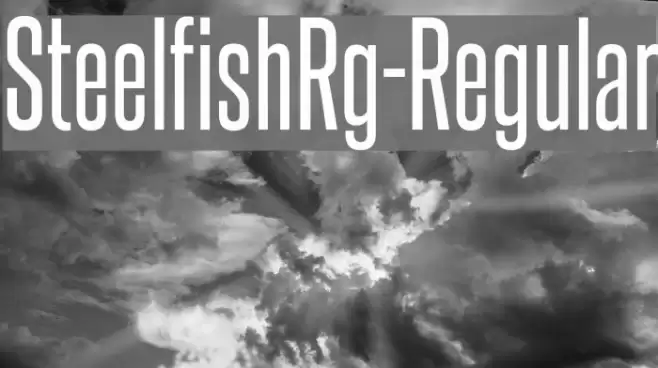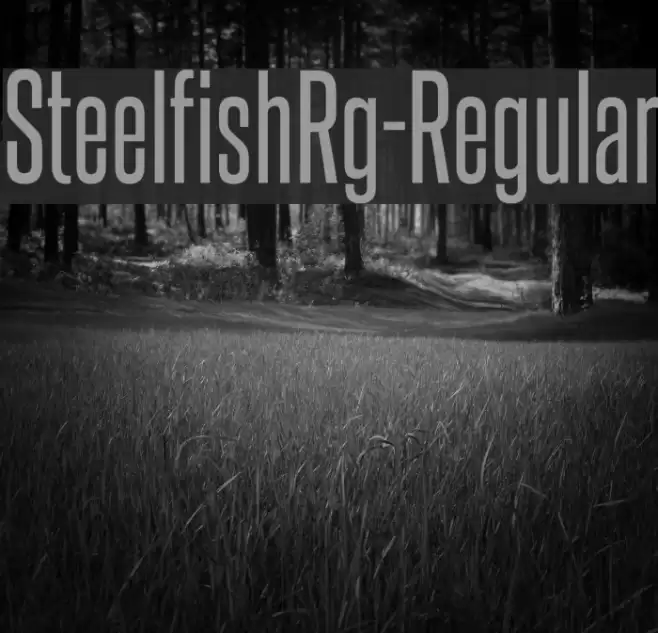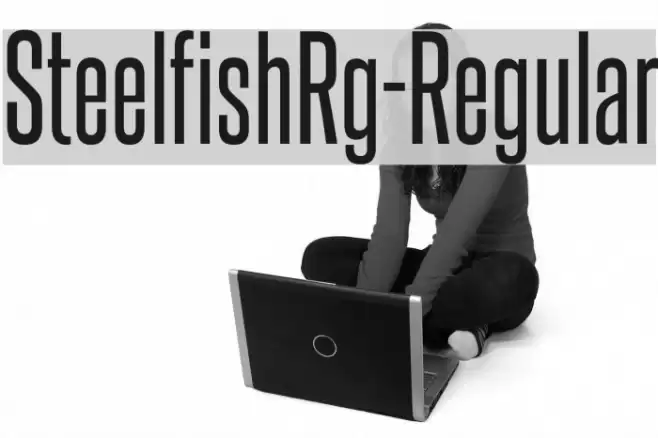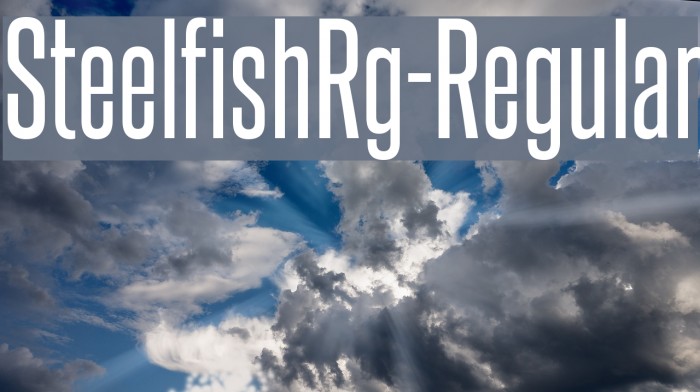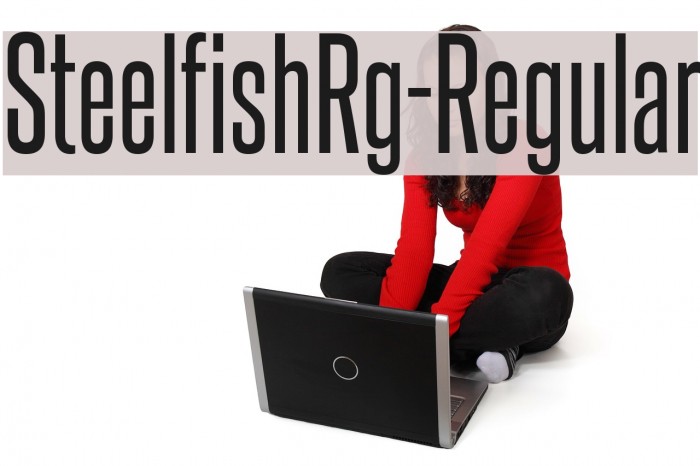
SteelfishRg-Regular Font
SteelfishRg-Regular Description
This font features a tall, condensed style with clean, straight lines and minimal curves, giving it a modern and sleek appearance. The uppercase and lowercase letters maintain a consistent height, contributing to its uniform look. The numerals are similarly styled, ensuring readability and cohesion across different text elements. The special characters are designed to match the overall aesthetic, with a focus on simplicity and clarity. This font is well-suited for projects that require a bold yet refined typeface.
A tall, condensed font with a modern and sleek design from Formal fonts.
- Proposed Projects: Ideal for headlines, posters, branding, and editorial design where a strong visual impact is needed.